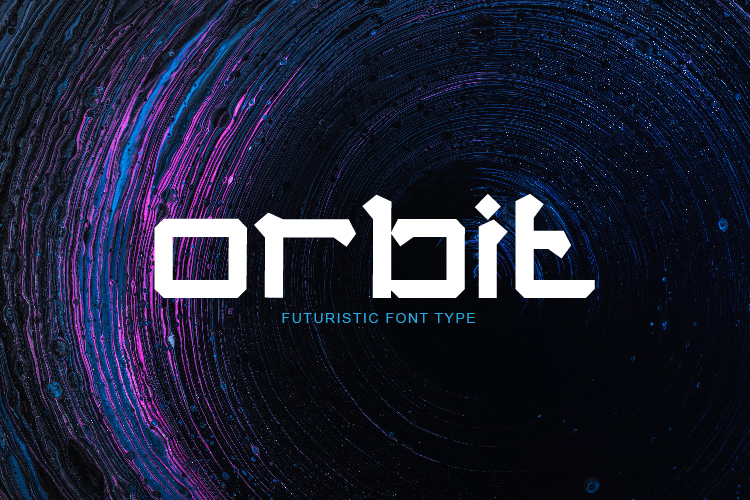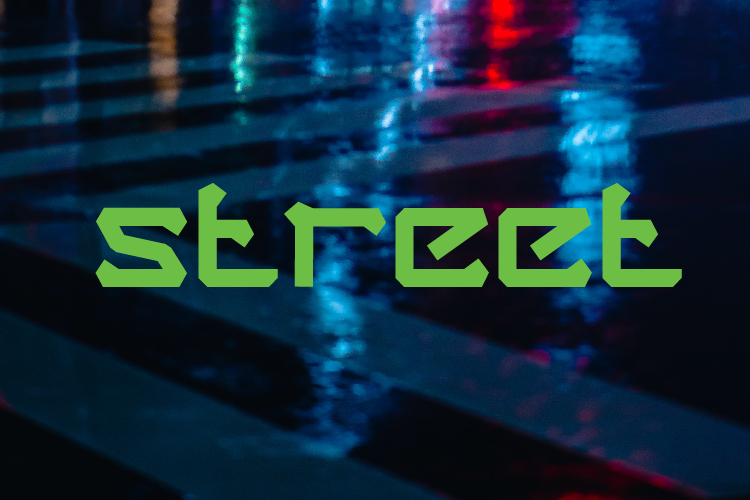
Stable Font
Stable Display Font
This is a cool and techno looking display font. It is ideal for writing web designs, business cards, or pretty much anything else that requires a unique touch.